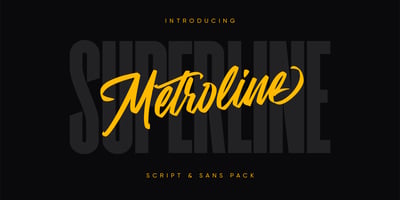
Metroline
Metroline font
Metroline Font Family was designed by Anton Didenko and published by Kavoon. Metroline contains 2 styles and family package options. Metroline is the font pack. The Normal font combines with the alternate character font to make each word unique. Then add the Sans font as your tagline and — the ideal logo!Whats include: Metroline Script – Includes OpenType features. Metroline Sans – Perfectly for create cool – typography or logo design. Includes a range of multilingual support.